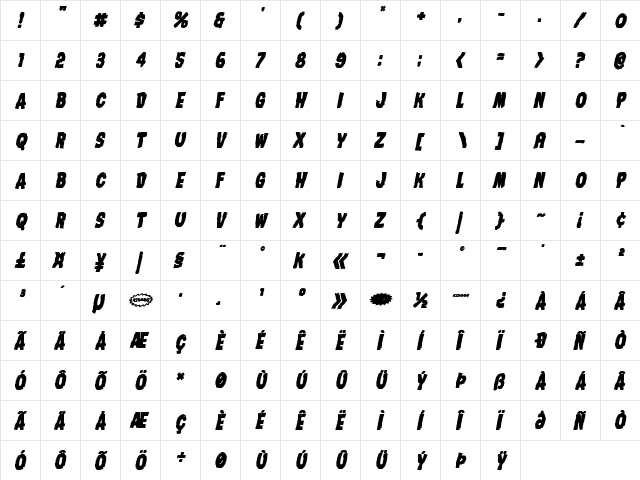
Design Context for Nightmare Alley Bold Italic Typeface
Nightmare Alley Bold Italic offers clean, dependable letterforms without strong stylistic allegiance, making it a practical choice for designers who need flexibility. The dynamic lean of this cut emphasises speed and emphasis in any layout. The heavy weight commands attention and anchors typographic hierarchies.
Pro Tip: Use Nightmare Alley Bold Italic for emphasis, pull quotes, and subheadings where its slanted energy can add rhythm to the layout.